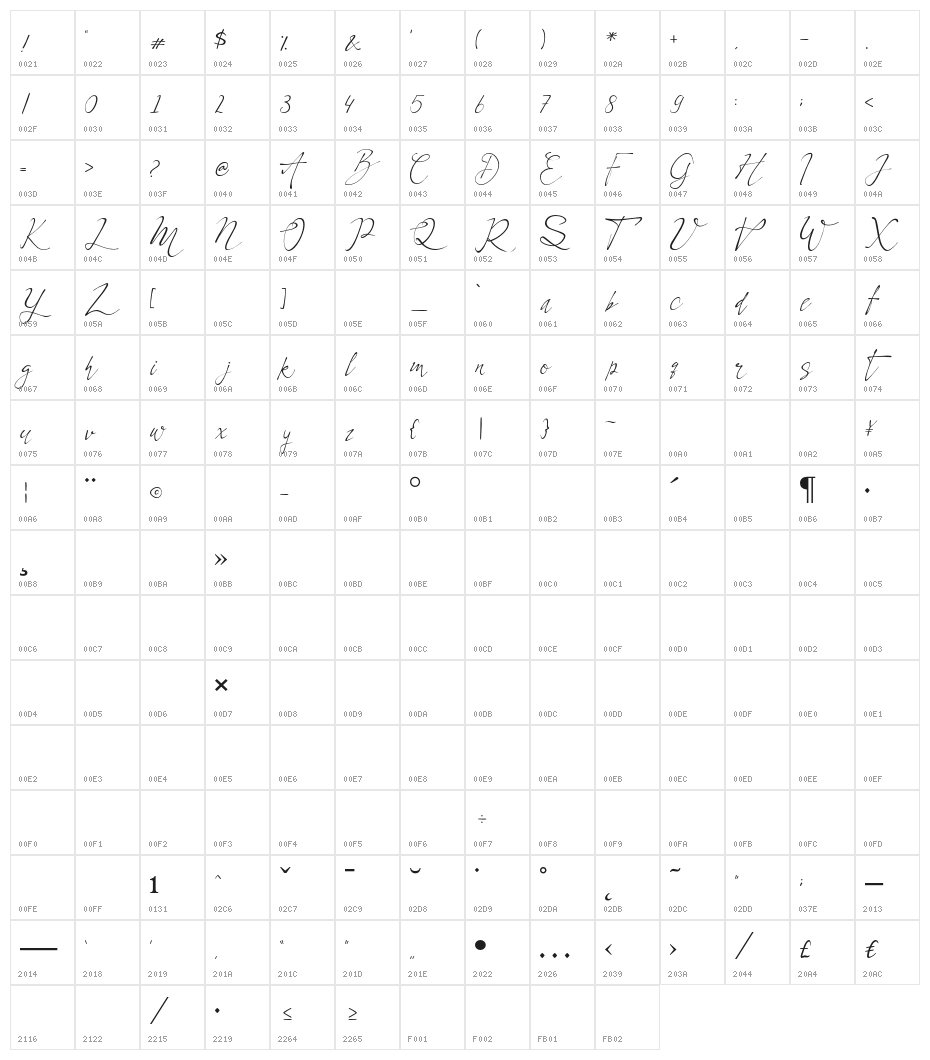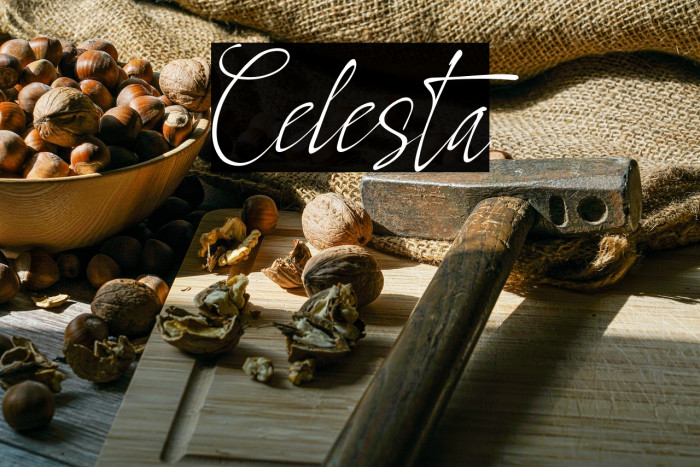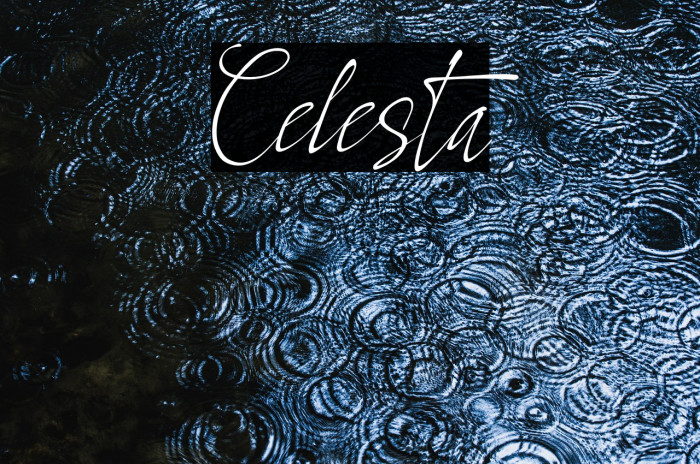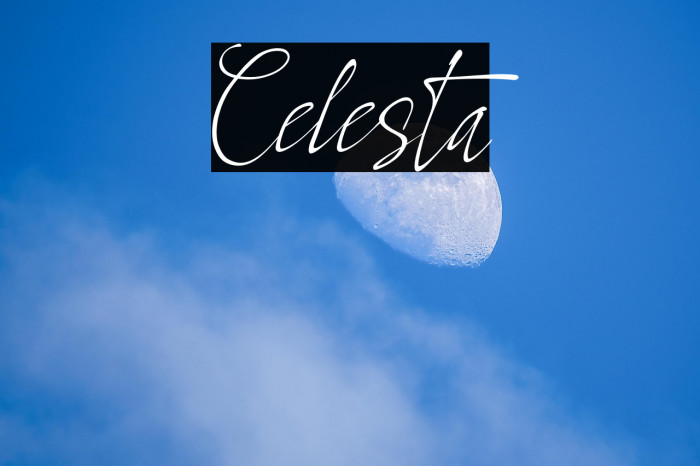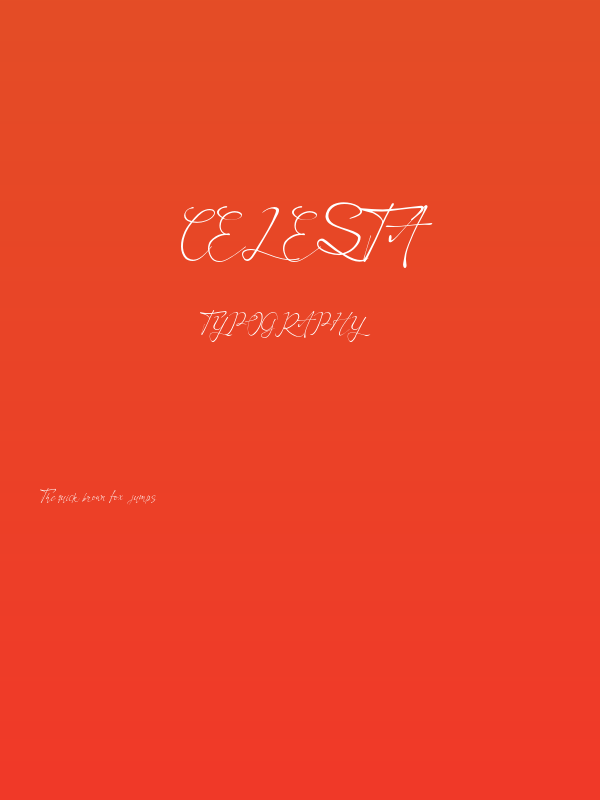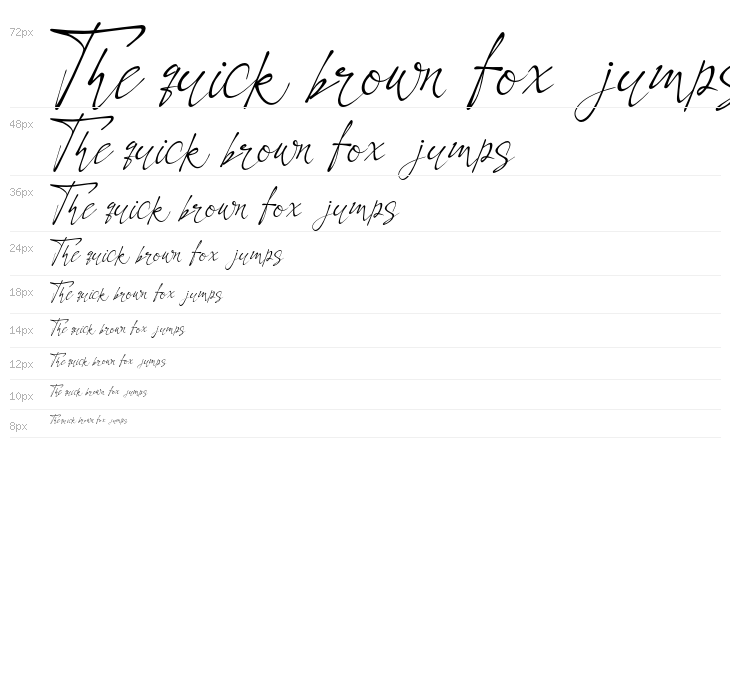
Celesta Font
Celesta Description
This elegant script font features flowing, cursive letters with a sophisticated flair. The uppercase characters are tall and graceful, with sweeping curves and delicate loops that give a sense of movement and fluidity. The lowercase letters maintain this fluidity, with a slightly more compact form that complements the uppercase. The numerals are consistent with the overall style, offering a harmonious blend of curves and lines. Special characters are thoughtfully designed to match the script's aesthetic, ensuring a cohesive look across all text elements. This font exudes a sense of elegance and refinement, making it ideal for formal and decorative applications.
| Overall Style | Elegant, Decorative |
| Use Case | Headlines, Invitations, Branding |
| Proposed Projects | Ideal for wedding invitations, elegant branding, formal event programs, and decorative signage. |